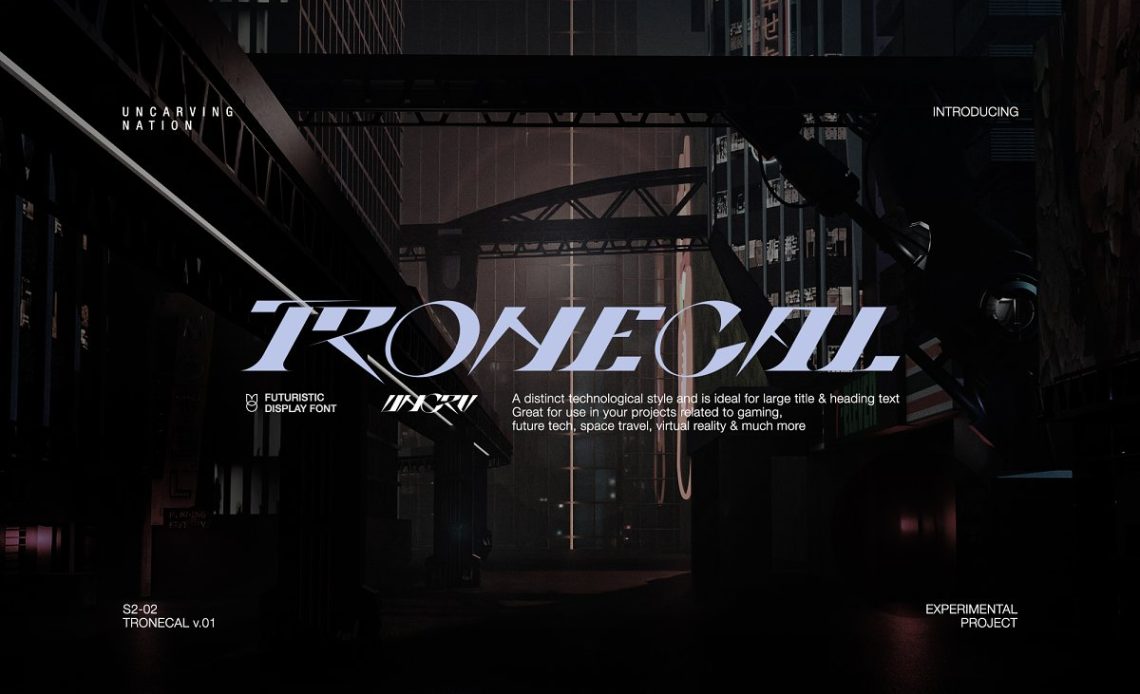
Introducing Tronecal, the perfect display font for modern websites. This font family, created by the talented uncarving, is inspired by the modern theme with a futuristic touch while keeping its simplicity and unique shapes. Tronecal is the best font for websites that are related to gaming, future tech, space travel, virtual reality, and so much more!
With Tronecal, you can take your projects to the next level. This font is perfect for catching the attention of your audience, as it has a bold and modern look that is sure to make an impact. Whether you're designing a website or creating a marketing campaign, Tronecal is the font that will elevate your brand.
One of the best things about Tronecal is that it is not just limited to personal projects. This font is perfect for commercial use as well. You can use it for anything from creating logos to designing posters. The possibilities are endless!
But don't just take our word for it. Let the font speak for itself. Tronecal is a font that will give your project a unique and futuristic touch. It is perfect for modern websites that want to stand out from the crowd. With Tronecal, you can create a website that not only looks great but also captures the attention of your target audience.